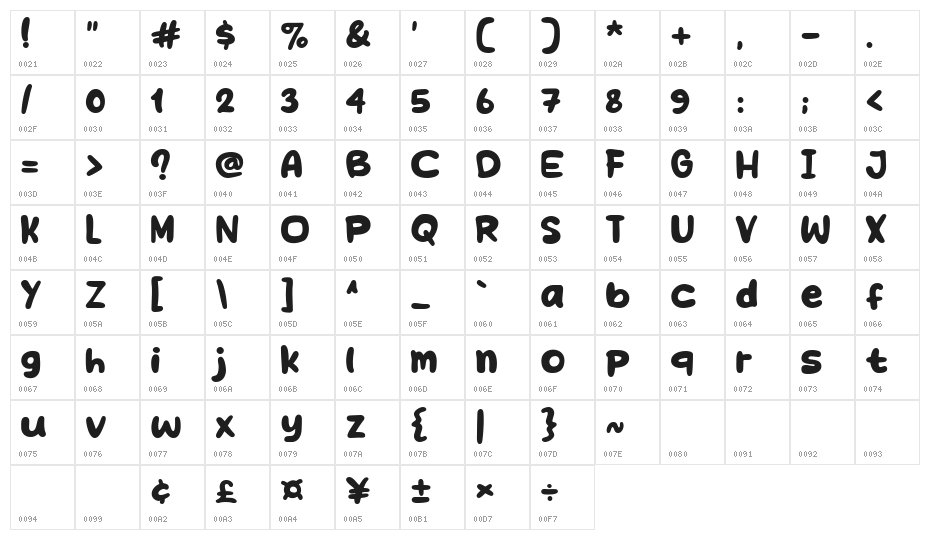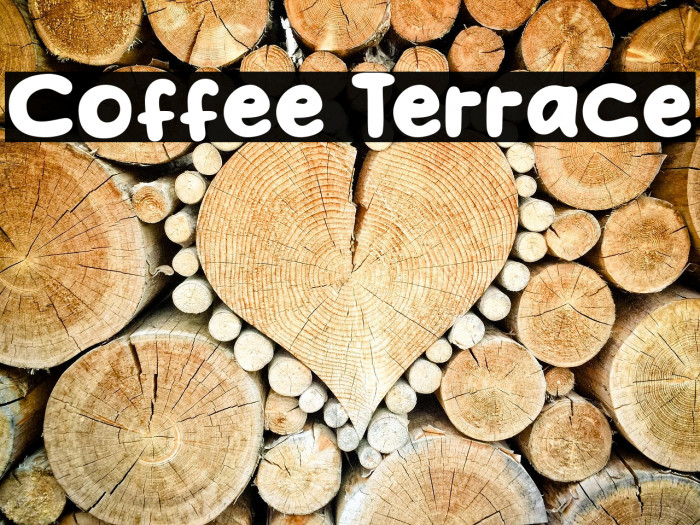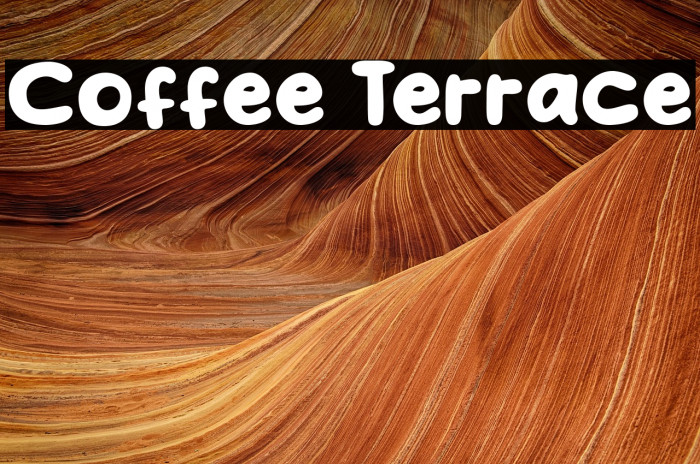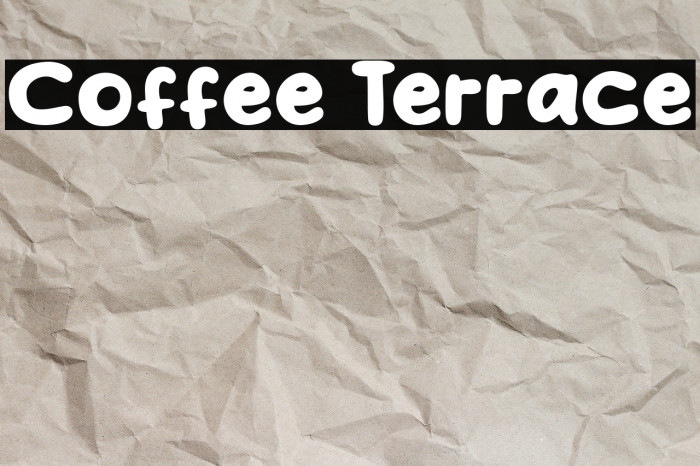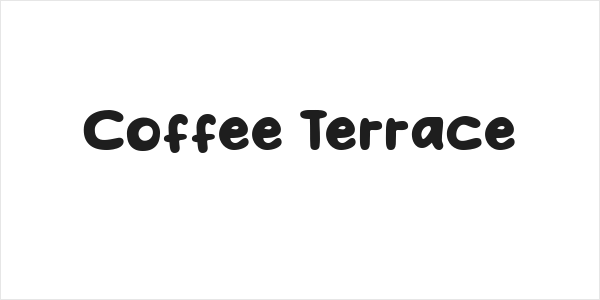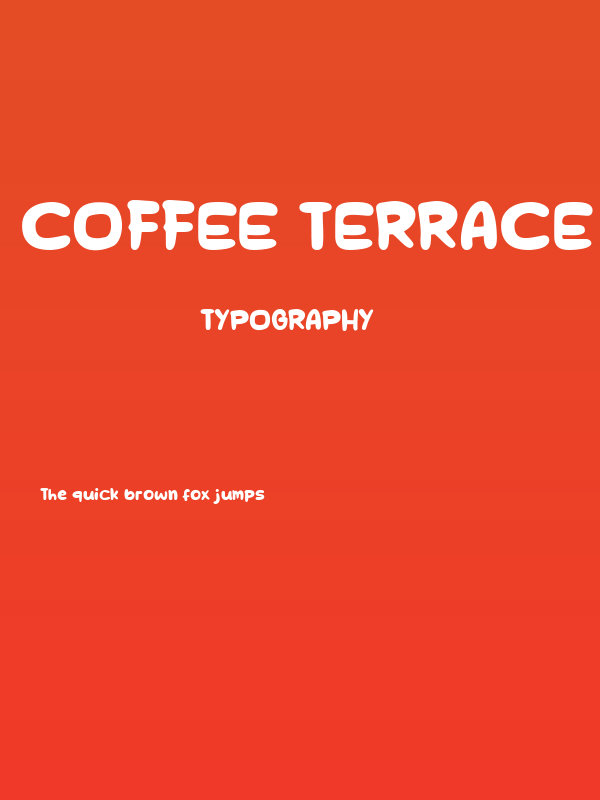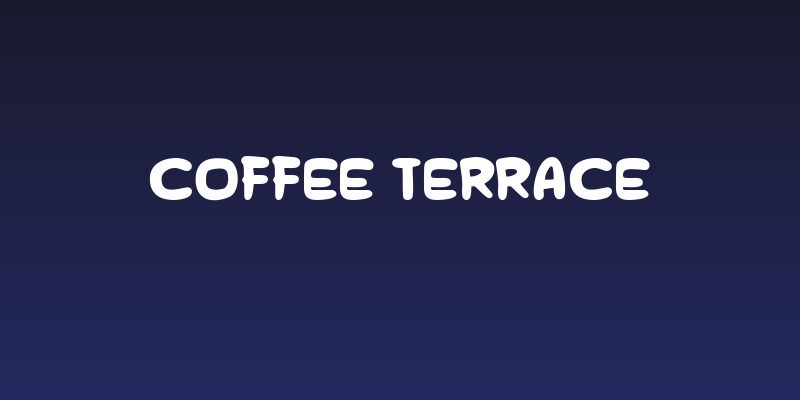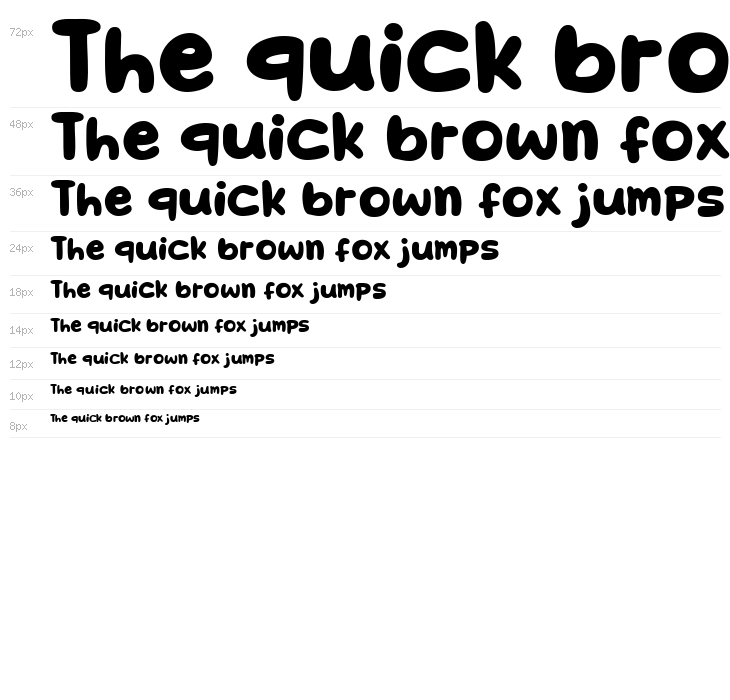
Coffee Terrace Font
Coffee Terrace Description
This playful and bold font features rounded, bubbly characters that exude a sense of fun and approachability. The letters are thick and have a consistent stroke width, giving them a cartoonish and informal appearance. The uppercase and lowercase letters maintain a uniform style, with slightly exaggerated curves and a friendly demeanor. Numbers and special characters follow the same design principles, ensuring a cohesive look across all elements. The font's whimsical nature makes it ideal for projects that require a lighthearted and engaging touch.
| Overall Style | Playful, Informal |
| Proposed Projects | Ideal for children's books, playful branding, party invitations, and casual social media graphics. |